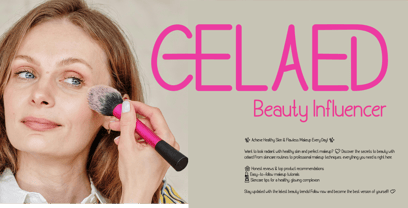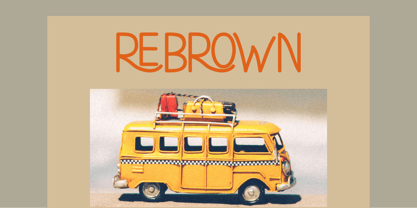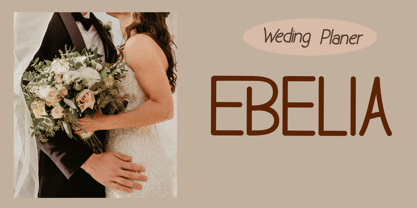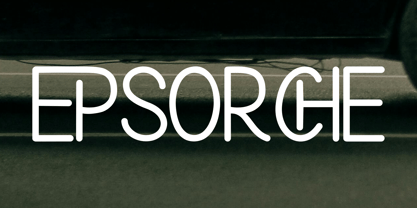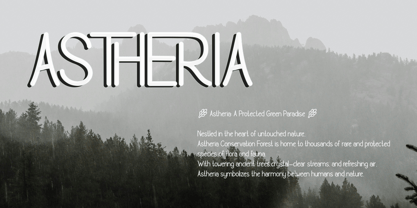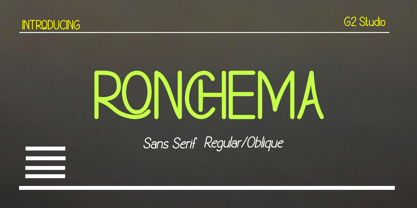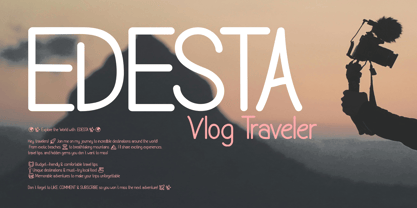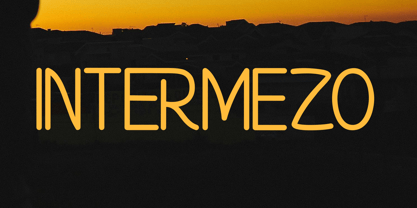
Ronchema
The Ronchema Font Family was designed by Eka Setiono and published by G2 Studio. Ronchema contains 2 styles and family package options.
Ronchema – A Modern & Elegant Sans-Serif
Ronchema is a refined sans-serif font that blends modern simplicity with timeless elegance. Designed for versatility, it’s perfect for branding, editorial, UI/UX, and more. With balanced proportions and smooth readability, Ronchema brings a sophisticated touch to any design.
Enhance your creative work with the effortless charm of Ronchema.